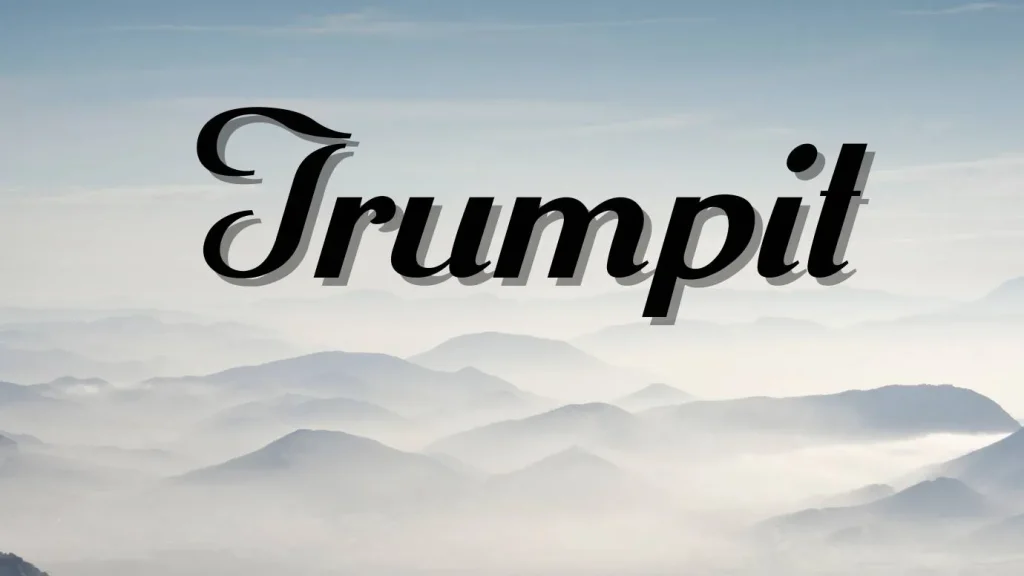
Script font does have a clean, natural appearance that makes it perfect for projects that demand a unique feel. Trumpit Font is a fantastic option for projects that require an original and imaginative touch.
The font is often used by many designers for graphics theme tunes. Moreover, characters can be used for making magazines, greeting cards, etc.
Style Script